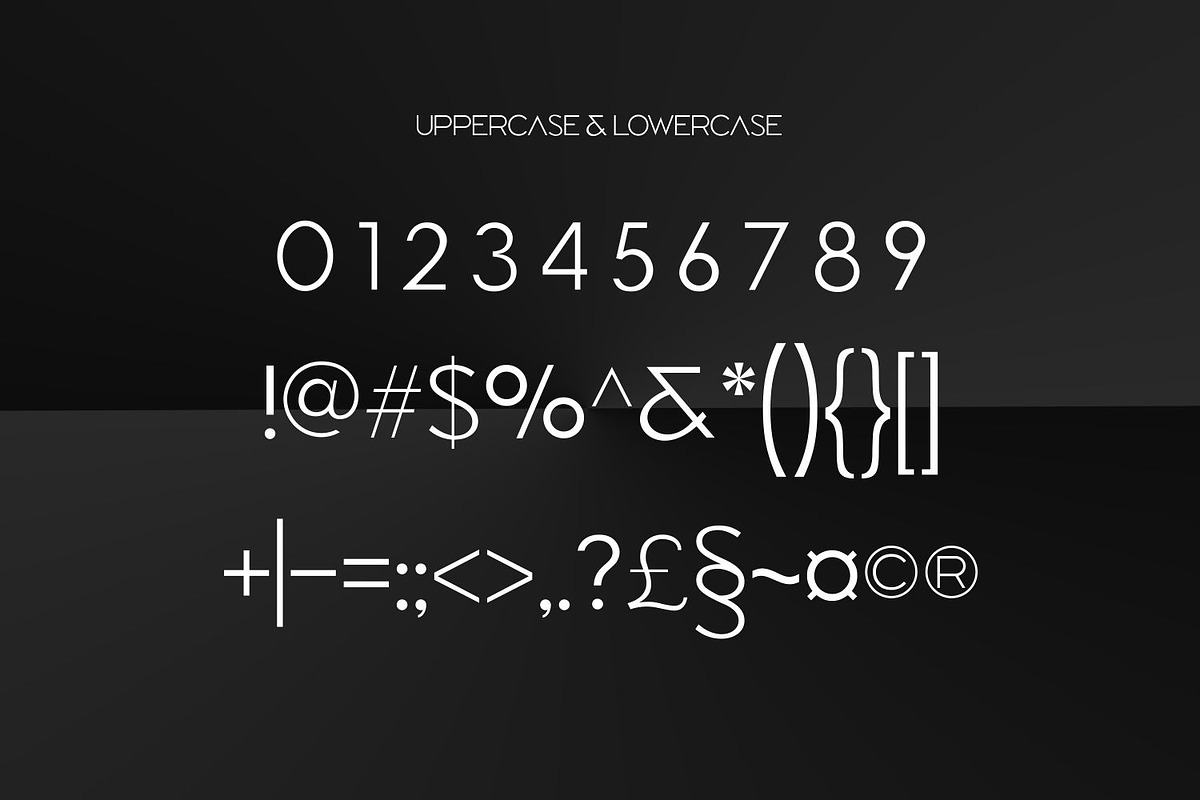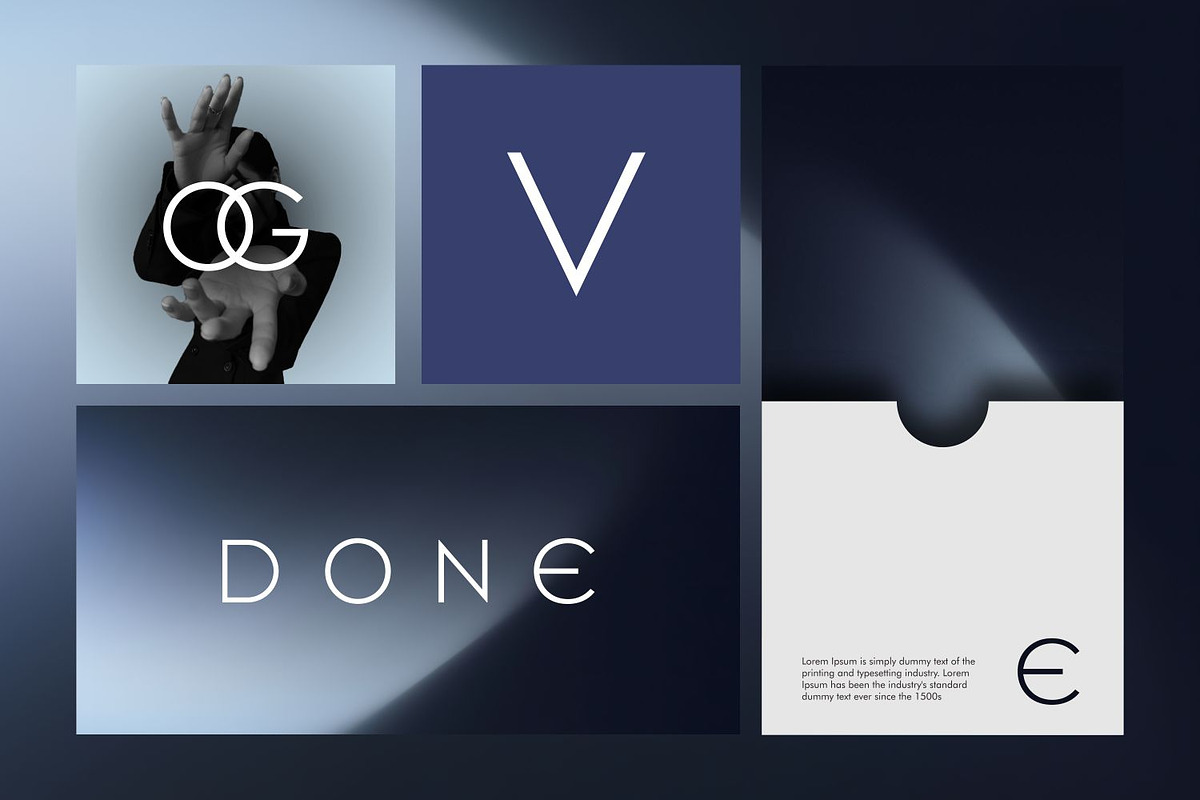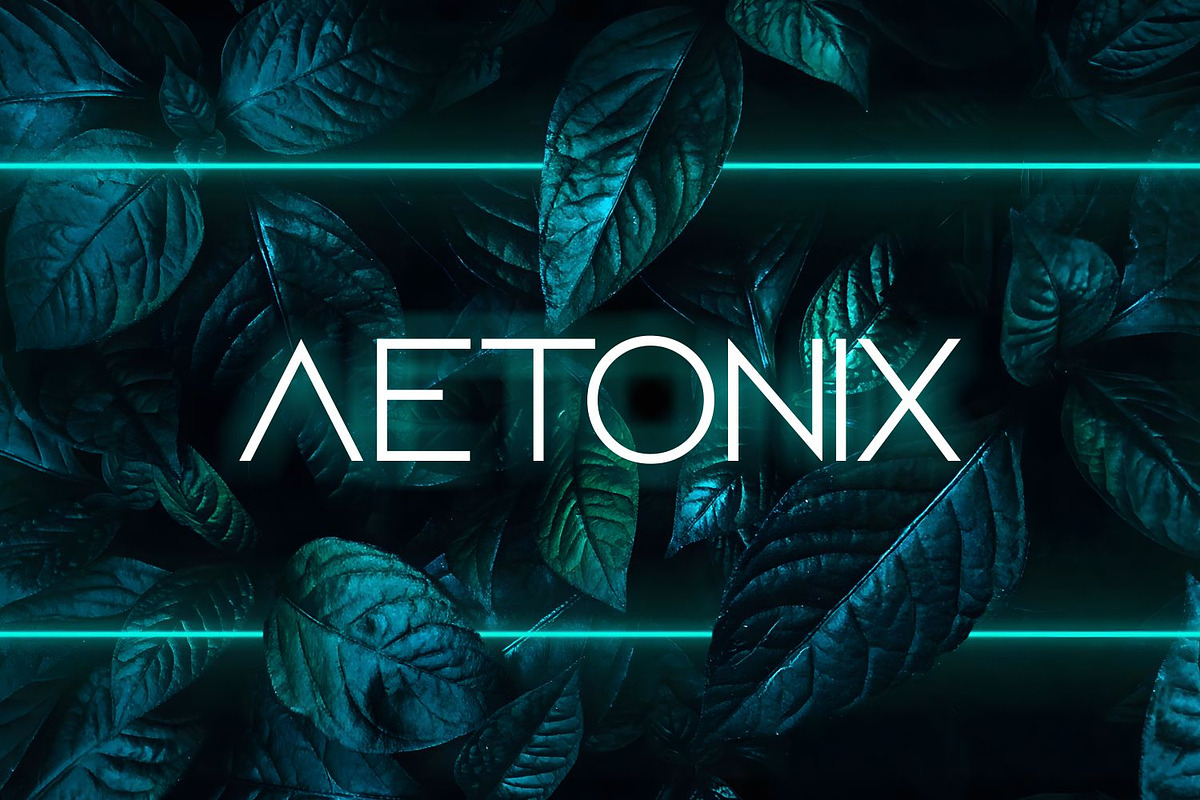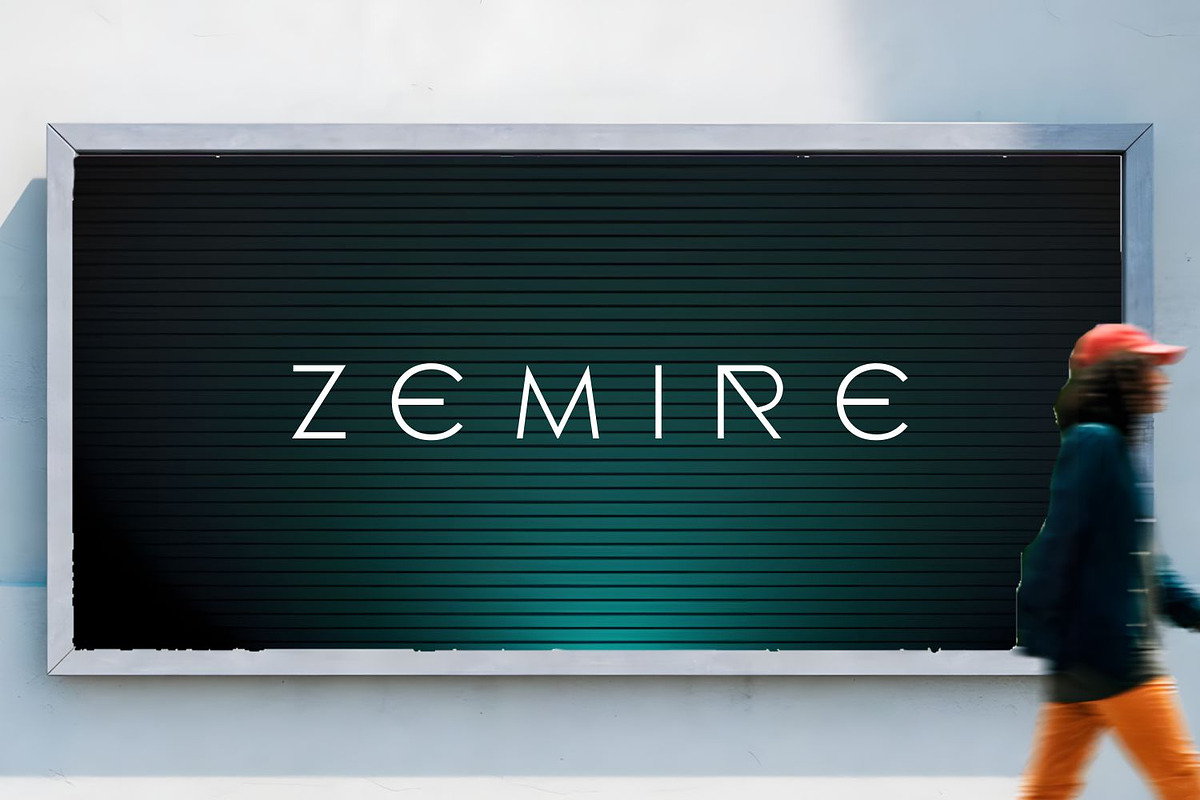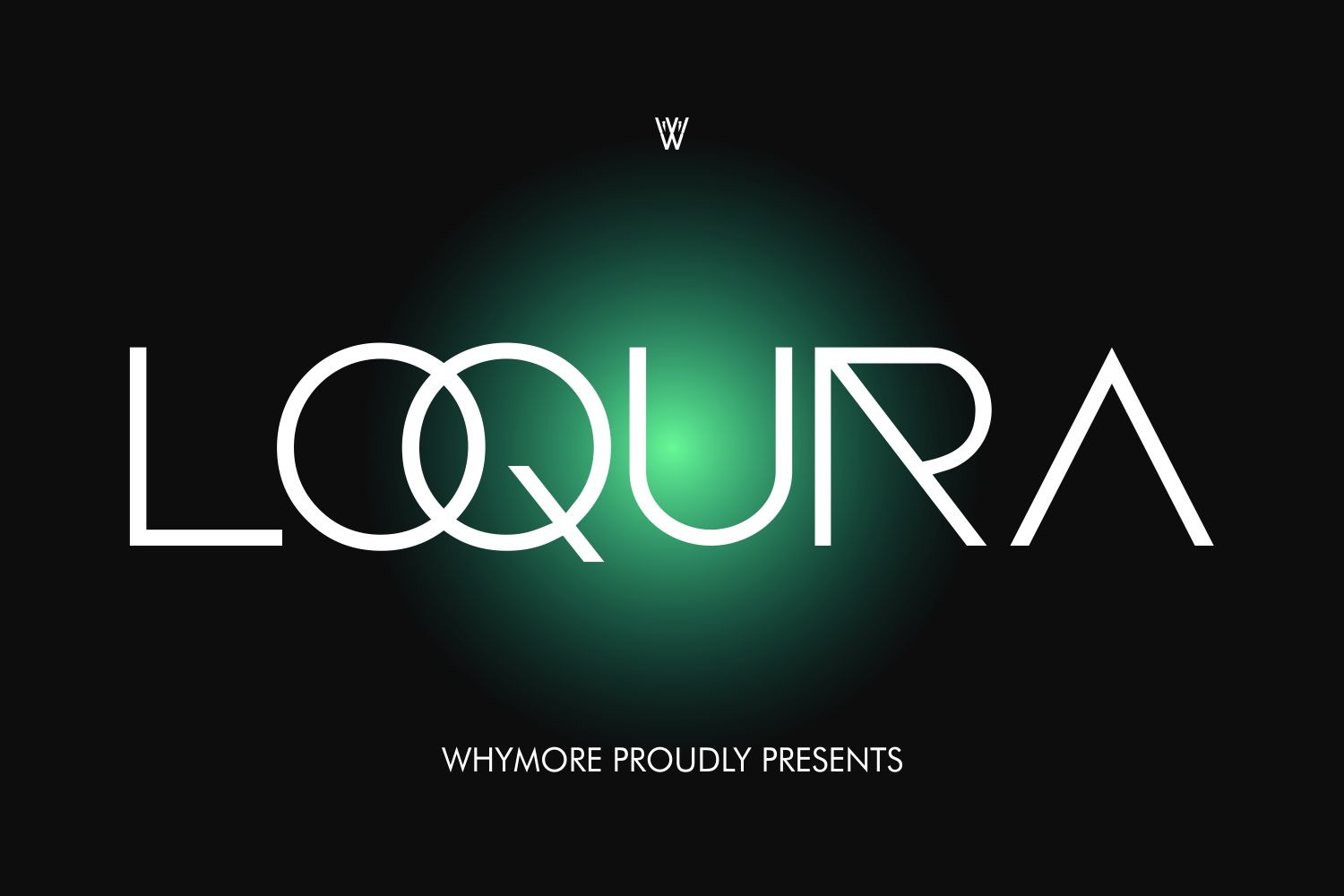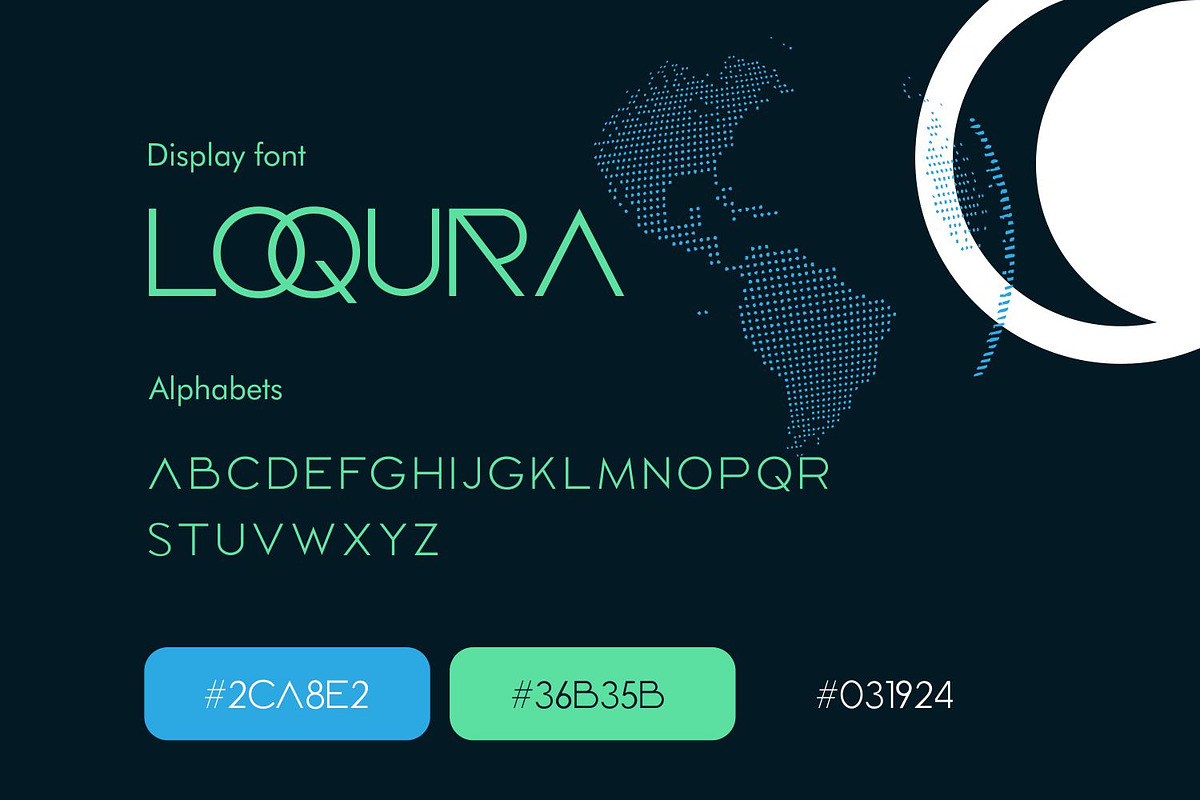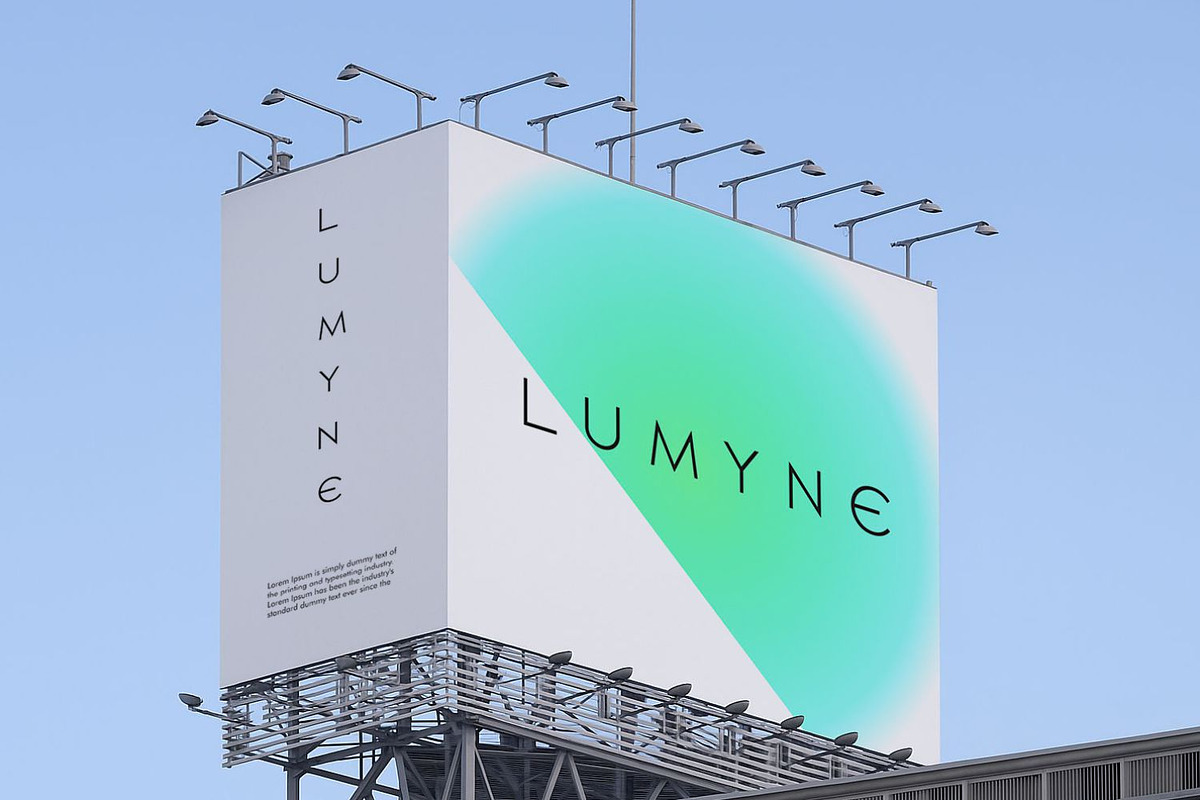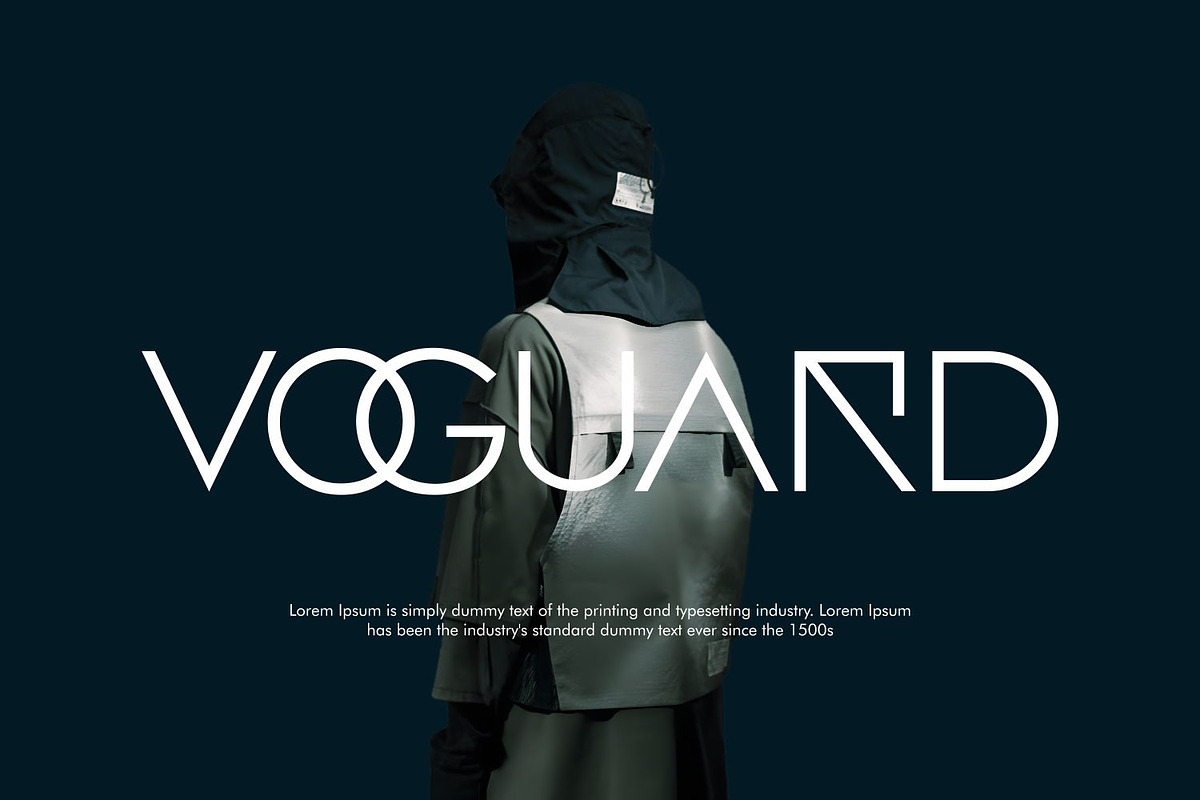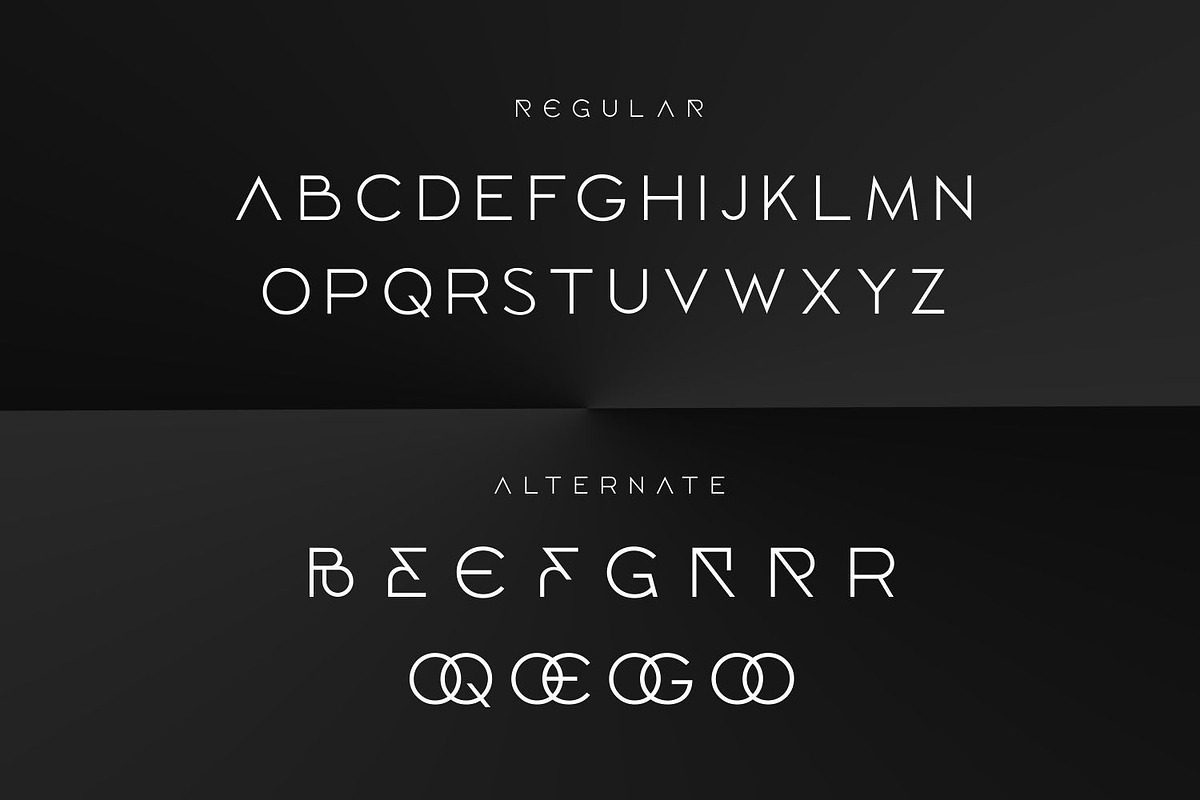
Loqura – Sleek Futuristic Logo Font
Introducing LOQURA – A Sleek Futuristic Font for Elite Branding and Logo Design
Step into the future of branding with LOQURA, a bold, geometric sans serif font designed to elevate your visual identity. With sleek lines, sharp curves, and a sophisticated Y2K-inspired style, LOQURA is the perfect choice for designers, creators, and brands who want to make a powerful first impression.
Crafted for modern logos, stationery mockups, and bold headlines, LOQURA stands out in both print and digital environments. Its condensed shape and minimalist structure create a striking presence across platforms like Canva, Adobe Illustrator, and more.
Whether you're working on a fashion brand, startup pitch deck, tech website, or social media campaign, LOQURA helps your message appear confident, elegant, and unmistakably modern.
🔍 Font Features: Sleek & Futuristic Design Geometric & Condensed Letterforms Uppercase & Lowercase Letters Modern Sans Serif Style Works Seamlessly on Canva, Adobe, and More